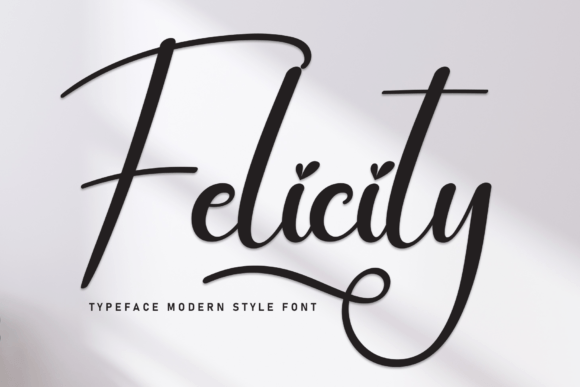
Introducing a Touch of Whimsy: The Felicity Font
Have you ever found yourself scribbling down a heartfelt message on a card, only to realize that your handwriting just isn’t doing it justice? We’ve all been there – the words we want to convey are heartfelt, but the way they’re written just doesn’t match the sentiment. That’s where the Felicity Font comes in – a sweet and friendly handwritten display font that’s sure to add a touch of whimsy to any design.
Perfect for writing wedding invitations, cards, or any other design that needs a fun touch, the Felicity Font is a valuable addition to any designer’s toolkit. Its playful, cursive lines make it easy to use and versatile in its applications, from digital designs to print materials. Whether you’re a seasoned pro or just starting out, the Felicity Font is sure to bring a smile to your face and a touch of personality to your work.
Felicity Font Key Features
- Font Family: Felicity Font is a modern script font, ideal for creative projects and designs that require elegance and sophistication.
- Unique Characteristics: The font features swashes, flourishes, and subtle variations in letterforms, giving it a unique and personalized touch.
Felicity Font Review
Felicity Font is a beautiful script font that I’ve had the pleasure of working with. Here’s what I think about it.
- Beautifully crafted script letters that flow smoothly.
- Perfect for creating a whimsical and elegant feel in your designs.
- Works well in titles, headings, and even body text.
- Can be difficult to read in small font sizes due to its script nature.
- May not be suitable for body text in publications or documents that require clear readability.
- Not ideal for digital signage or displays where text needs to be easily readable from a distance.
Overall, Felicity Font is a lovely addition to any designer’s toolkit. While it has its limitations, it’s perfect for creating eye-catching titles and headings that add a touch of elegance to your designs. Just be mindful of its limitations and use it wisely.
Felicity Font: A Practical Application Guide
For the best results, use the Felicity Font in conjunction with elegant graphics, pastel color schemes, and subtle textures. Experiment with different font sizes, colors, and styles to achieve a unique look. Avoid using the font in overly bold or dramatic contexts, as it may lose its delicate charm.
The Felicity Font is ideal for wedding invitations, baby shower decorations, and other elegant, handwritten-style designs. It’s also suitable for quotes, posters, and other graphics that require a touch of whimsy and romance.